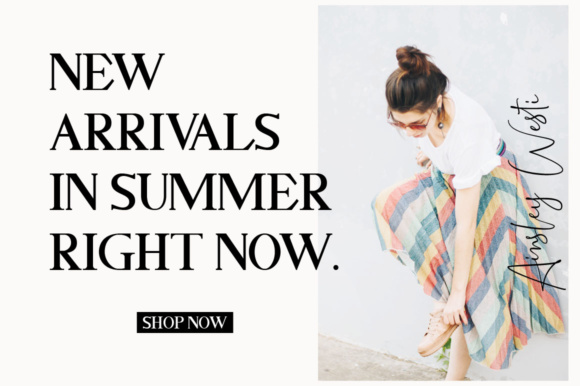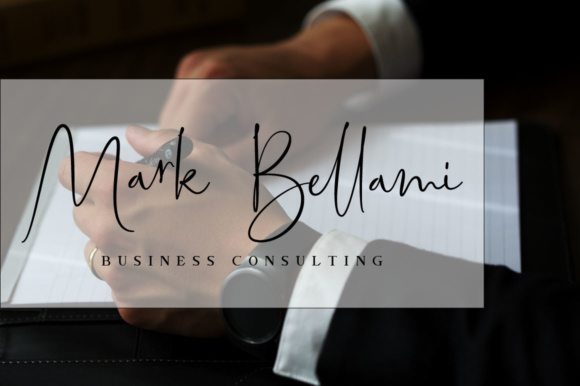
Queen Billqis Duo Font
db-ku.com - Script & Handwritten -- This Queen Billqis luxury font duo consists of a modern and elegant serif font, paired with a script font in a natural handwriting style.